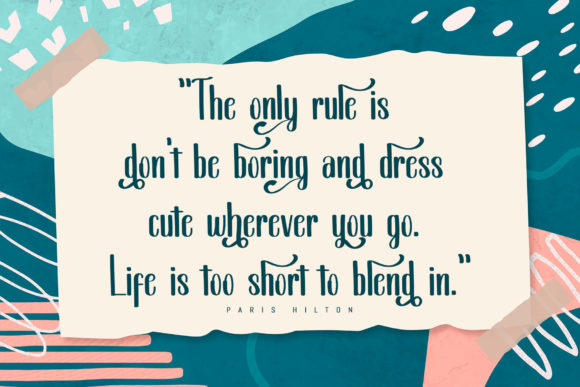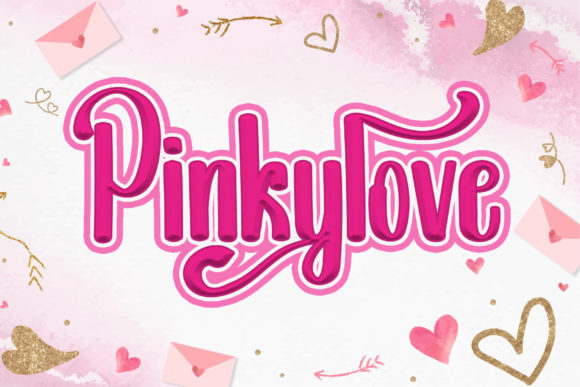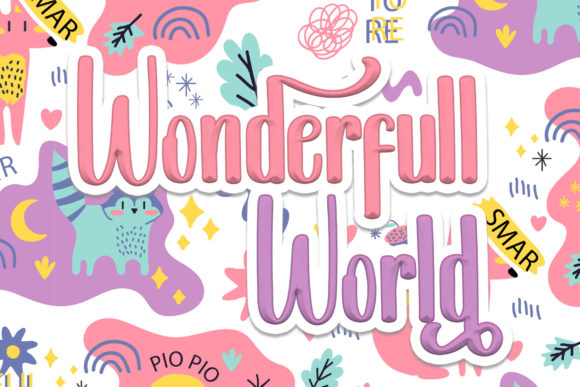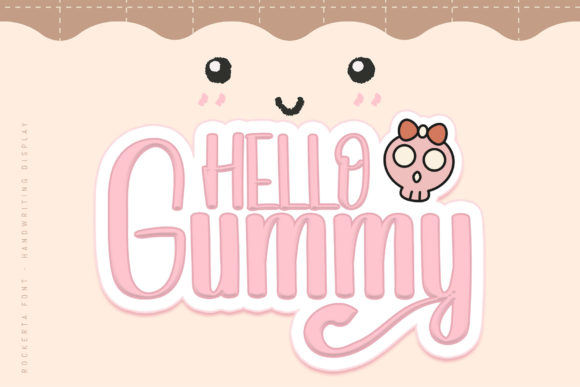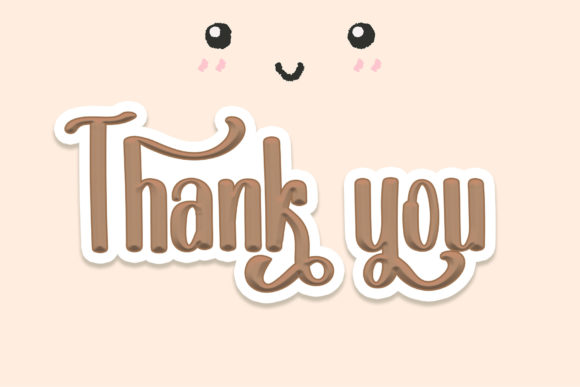
Introduction to Rockerta Font
Have you ever been working on a creative project, pouring your heart and soul into it, only to feel like something is missing? The right font can make all the difference, and that’s where the Rockerta Font comes in. With its fun and casual display style, this font has the potential to elevate your design and bring a new level of excitement to your creative endeavors.
Whether you’re working on a commercial campaign, a personal blog, or a creative project, the Rockerta Font is sure to be a hit. Its versatility and ease of use make it a must-have for any designer looking to add a little extra flair to their designs.
Key Features of Rockerta Font
- High-quality, creative font designed for various projects, including graphic design and digital art.
- Transparent background, making it easy to customize and combine with other design elements.
- Designed to be versatile, suitable for use in a range of creative projects, from logos and branding to posters and social media graphics.
- Designed to be scalable, ensuring that the font remains crisp and clear at various font sizes and resolutions.
- A valuable design resource for creatives, offering a unique and stylish look that can elevate any project.
Honest Review: Rockerta Font
As a designer, I’ve had the pleasure of working with numerous fonts, but the Rockerta Font has left a lasting impression. The moment I saw its unique and quirky style, I knew it would be a perfect addition to my design arsenal.
What works well: ✨ I appreciate the high-quality design that Rockerta Font brings to the table. The font is perfect for creative projects that require a touch of whimsy and playfulness. The transparent background feature allows for seamless integration into any design, making it a valuable design resource.
Here are some of its notable features:
- High-quality design perfect for creative projects
While the Rockerta Font excels in many areas, there are a few limitations: ⚠️ The font is not ideal for formal or professional projects, as its playful nature may not convey the desired tone.
Overall, I’m thoroughly impressed with the Rockerta Font. Its unique style and versatility make it a valuable addition to any designer’s toolkit. Whether you’re working on a personal or commercial project, the Rockerta Font is definitely worth checking out.
Rockerta Font is perfect for creative projects, such as logos, brochures, and social media graphics. It’s also great for designing presentations, reports, and other documents that require a professional look. With its transparent background and high-quality design, Rockerta Font is an essential design resource for any creative project.